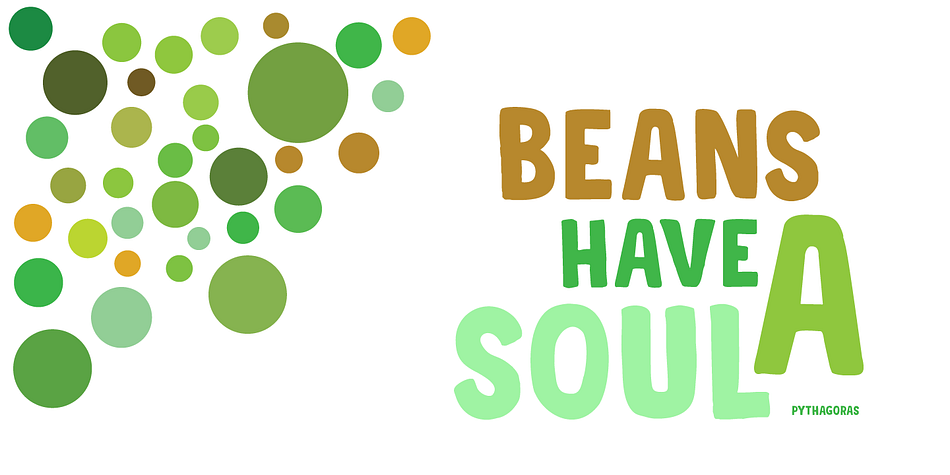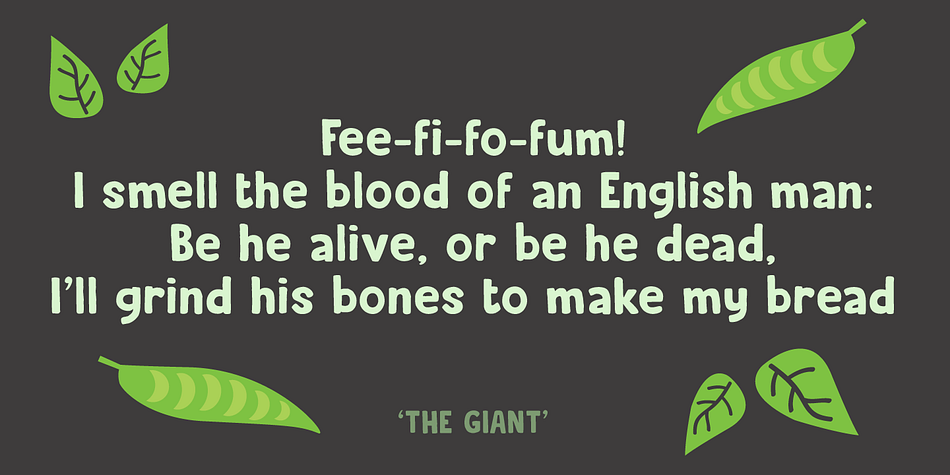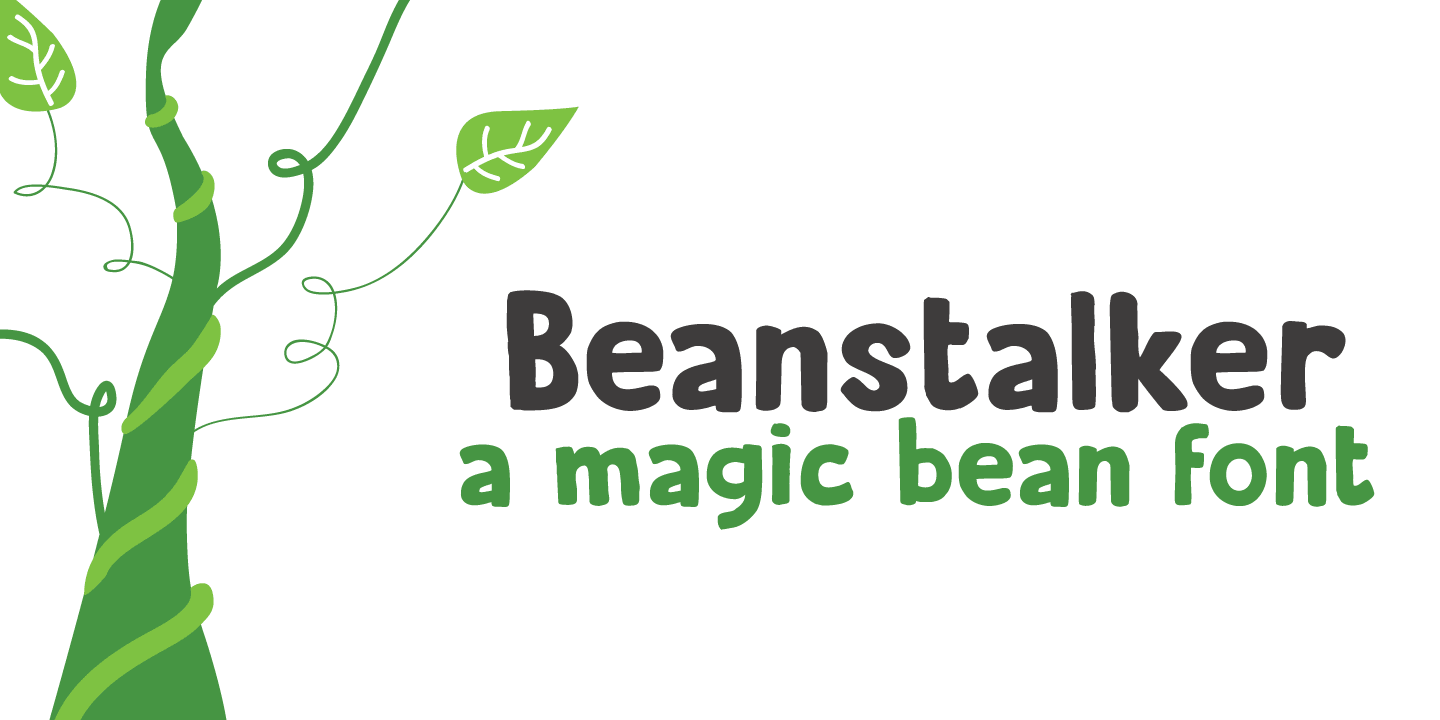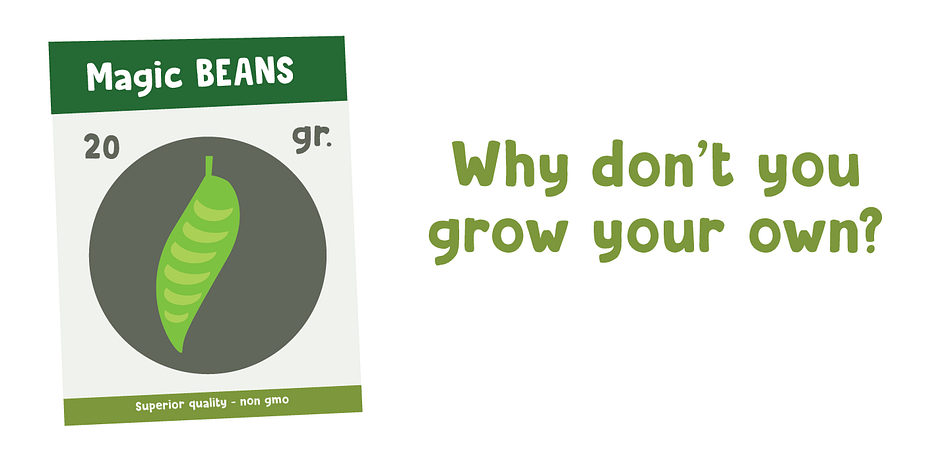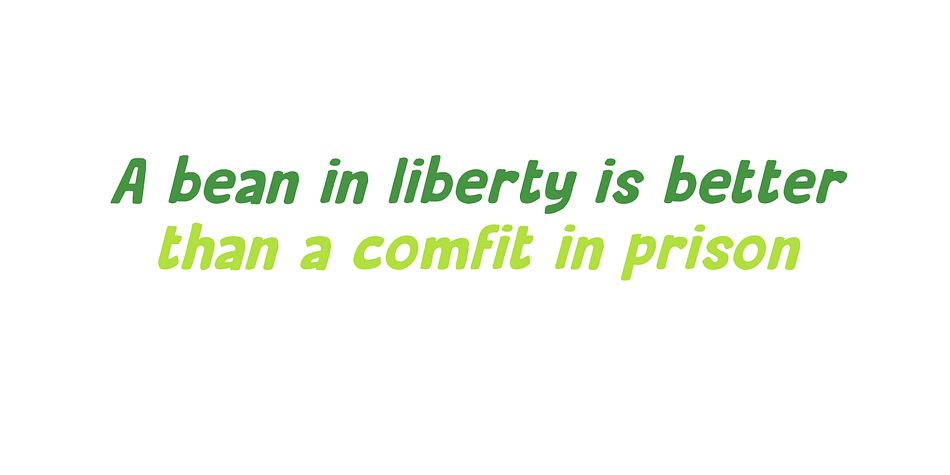
Designed by David Kerkhoff, Beanstalker is a hand drawn font family. This typeface has two styles and was published by Hanoded.
I’m not particularly fond of beans. I do eat them, but they’re not my idea of a delicacy… But this font has a ‘fairy tale’ feeling to it, and I liked the name Beanstalker.
Beanstalker is a hand made font (I used a fineliner to draw the glyphs). It is quite neat and organised, but does come with some rough edges and a bit of texture.